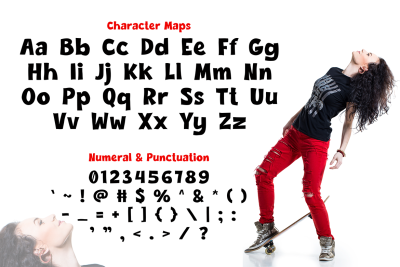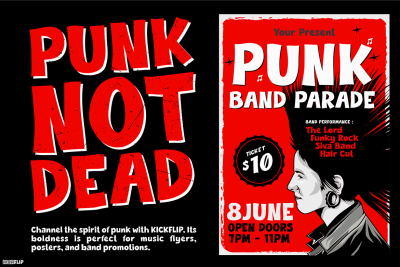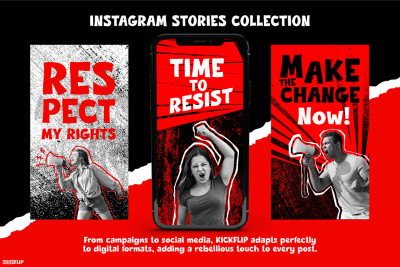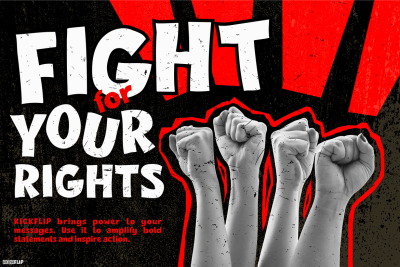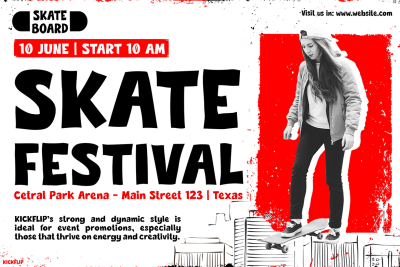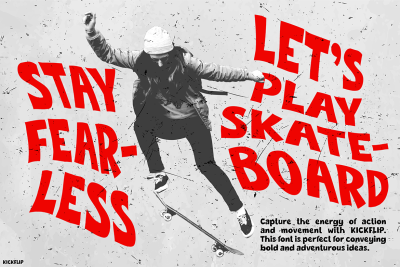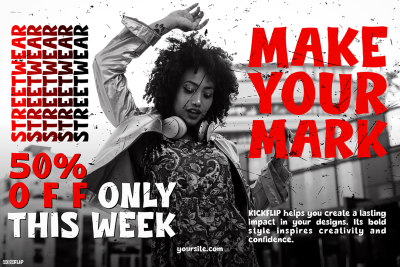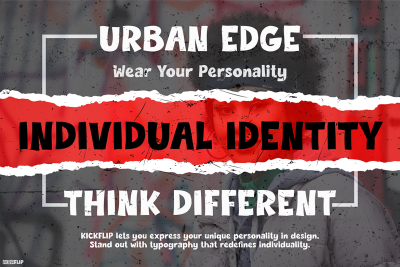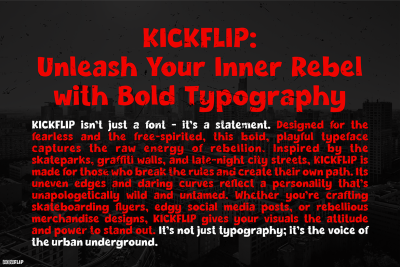
Music Font Kickflip is a bold and exciting typeface that draws inspiration from the energy and rhythm of music. Moreover, its design captures the essence of sound and motion, transforming any project into a lively visual experience. With its sharp angles and smooth curves, this font exudes creativity and fun. In addition, it seamlessly blends retro influences with a modern touch, making it perfect for projects that demand an artistic edge.
Furthermore, this font adds a dynamic personality to any design while maintaining readability. It is ideal for both print and digital formats, thanks to its clean proportions and consistent line weight. Whether you are creating posters, branding materials, or social media graphics, Music Font Kickflip ensures your message stands out. Ultimately, its vibrant and expressive style is perfect for evoking joy and creativity in every project.
Music Font Kickflip is a great choice for creative professionals who want to add energy and movement to their designs. For instance, graphic designers will find it useful for music festival posters, concert flyers, and promotional materials. Its bold style grabs attention and conveys a sense of excitement.
Additionally, musicians and bands can use this font to design logos, album covers, and merchandise. The playful yet professional look makes it a great match for creative branding. Therefore, it reflects the vibrant personality of the music industry while appealing to a broad audience.
Similarly, educators and music teachers can benefit from its engaging style. It works well for worksheets, event invitations, and teaching materials aimed at younger students. Because of its lively look, it makes learning materials more inviting and fun.
Moreover, content creators will love using Music Font Kickflip for social media posts, YouTube thumbnails, and digital banners. Its striking design ensures their content stands out in a crowded space. In conclusion, anyone seeking to add rhythm and originality to their work will find this font a perfect fit.
Music Font Kickflip is a typeface that celebrates creativity, energy, and movement. Above all, its unique design makes it suitable for a wide range of projects in music, arts, and entertainment. With this font, your designs will resonate with audiences and leave a lasting impression.